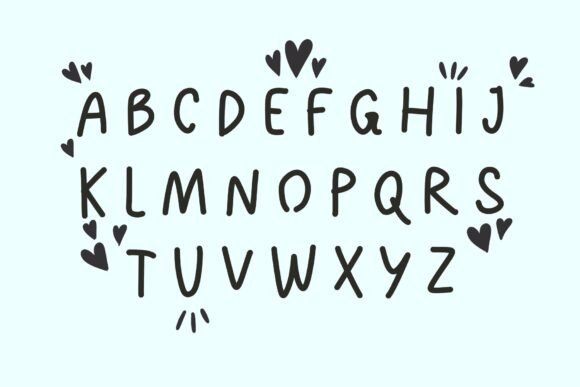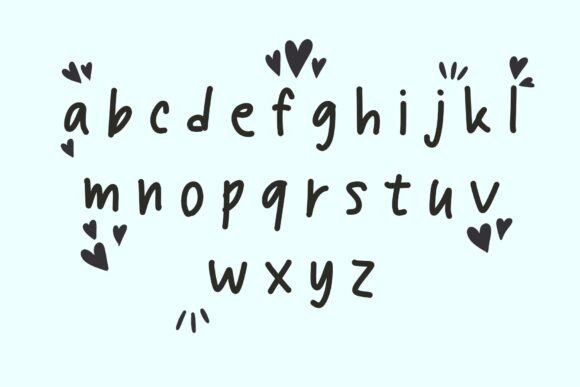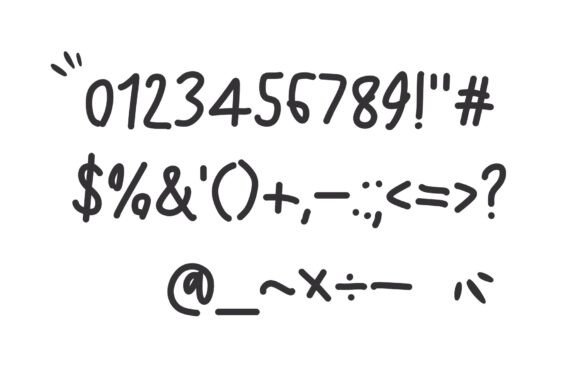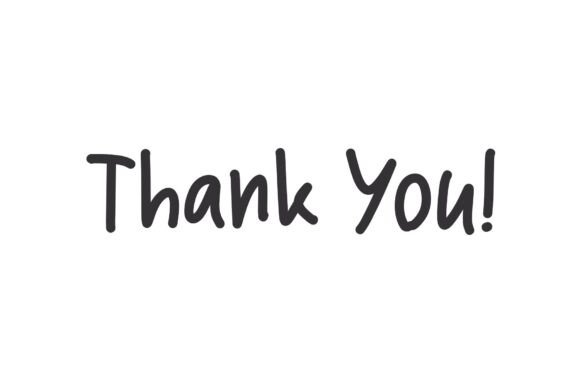
Say Hello to CottonFluff: Your New Favorite Handwritten Font
Are you tired of using the same old fonts for your digital and print projects? Look no further than CottonFluff, a charming handwritten font that’s sure to become your new go-to. With its soft, sweet, and playful design, CottonFluff is perfect for adding a personal touch to everything from digital note-taking to classroom worksheets, cute planner spreads, social media posts, logos, and more.
The Charm of CottonFluff
CottonFluff’s gentle curves and playful strokes make it a standout among other handwritten fonts. Its neat yet whimsical style brings a cozy, handmade feel to every word, making it perfect for designers and crafters who want to add a touch of personality to their work. Whether you’re journaling in Goodnotes, crafting for your Etsy shop, or adding a delightful touch to your designs, CottonFluff makes it effortless and fun.
Perfect for Digital and Print Projects
CottonFluff is a versatile font that’s suitable for a wide range of projects. Here are just a few ideas to get you started:
- Digital Note-Taking: Add a personal touch to your digital notes with CottonFluff. Its soft and sweet design makes it perfect for journaling, to-do lists, and meeting notes.
- Classroom Worksheets: Make learning fun with CottonFluff. Its playful design is sure to delight students and teachers alike.
- Cute Planner Spreads: Add a touch of whimsy to your planner with CottonFluff. Its gentle curves and playful strokes make it perfect for creating adorable planner spreads.
- Social Media Posts: Stand out on social media with CottonFluff. Its unique design is sure to grab attention and add a personal touch to your posts.
- Logos and Branding: Use CottonFluff to create a custom logo or add a personal touch to your branding. Its neat yet whimsical style makes it perfect for businesses that want to stand out.
Why Designers and Crafters Love CottonFluff
So why do designers and crafters love CottonFluff? Here are just a few reasons:
- Unique Design: CottonFluff’s unique design sets it apart from other handwritten fonts. Its soft and sweet design makes it perfect for adding a personal touch to any project.
- Easy to Read: Despite its playful design, CottonFluff is easy to read, making it perfect for digital and print projects.
- Versatile: CottonFluff is a versatile font that’s suitable for a wide range of projects, from digital note-taking to logos and branding.
- Fun to Use: CottonFluff is a joy to use, making it perfect for designers and crafters who want to add a touch of personality to their work.
Get Creative with CottonFluff
Ready to add CottonFluff to your design toolkit? Here are a few tips for getting the most out of this charming font:
- Experiment with Colors: CottonFluff looks great in a variety of colors, from soft pastels to bold brights. Experiment with different colors to find the perfect look for your project.
- Mix and Match: Don’t be afraid to mix and match CottonFluff with other fonts. Its unique design makes it perfect for pairing with bold or serif fonts.
- Add Texture: Add texture to your project with CottonFluff. Its soft and sweet design makes it perfect for creating textured or layered designs.
In conclusion, CottonFluff is a charming handwritten font that’s perfect for designers and crafters who want to add a personal touch to their work. With its soft and sweet design, CottonFluff is suitable for a wide range of projects, from digital note-taking to logos and branding. So why not give CottonFluff a try? Its unique design and easy-to-use style make it the perfect addition to any design toolkit.
Add that fluffy, feel-good vibe to all your creative projects with CottonFluff. Say hello to your new favorite font and experience the joy of designing with a font that’s as lighthearted and lovely as its name!